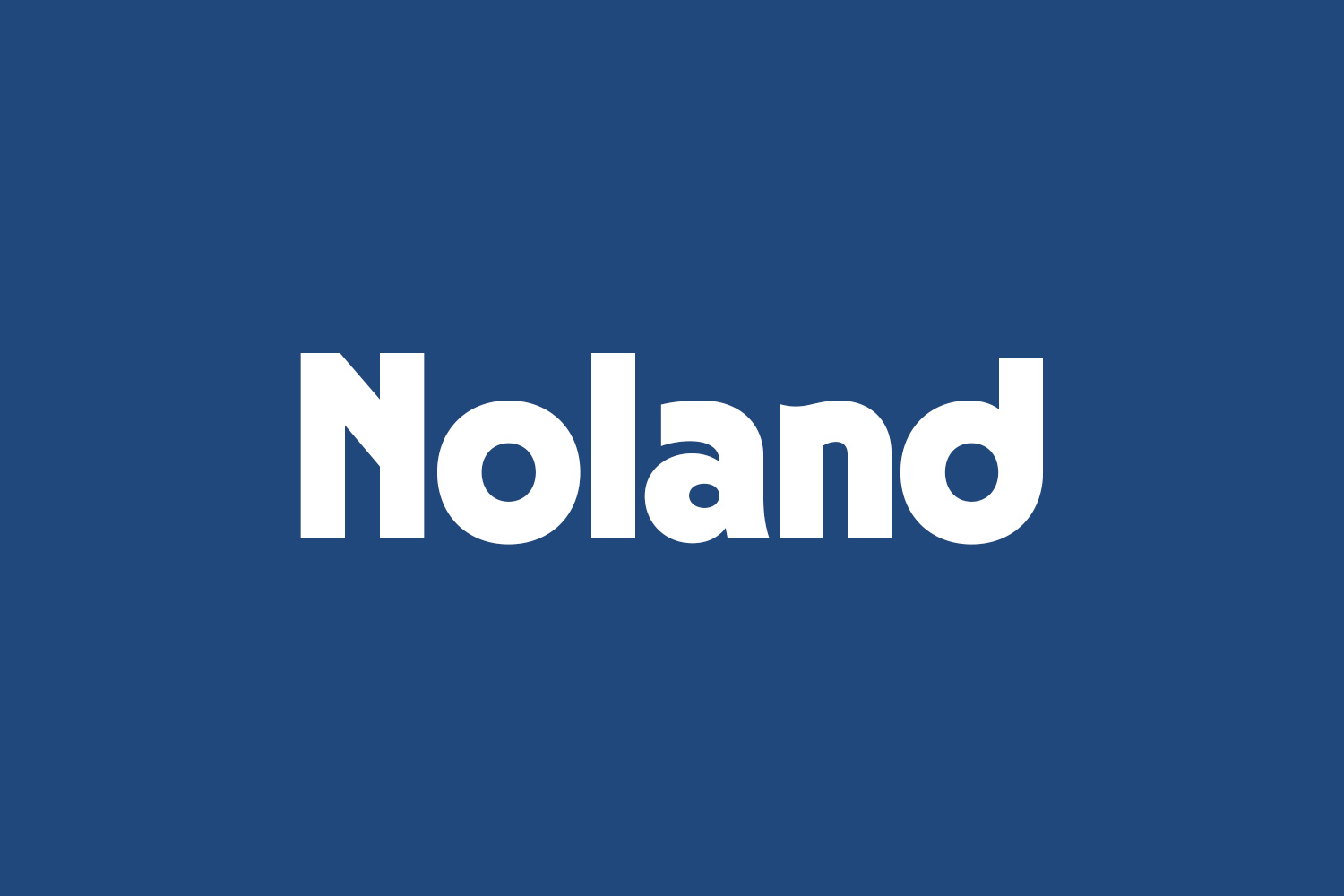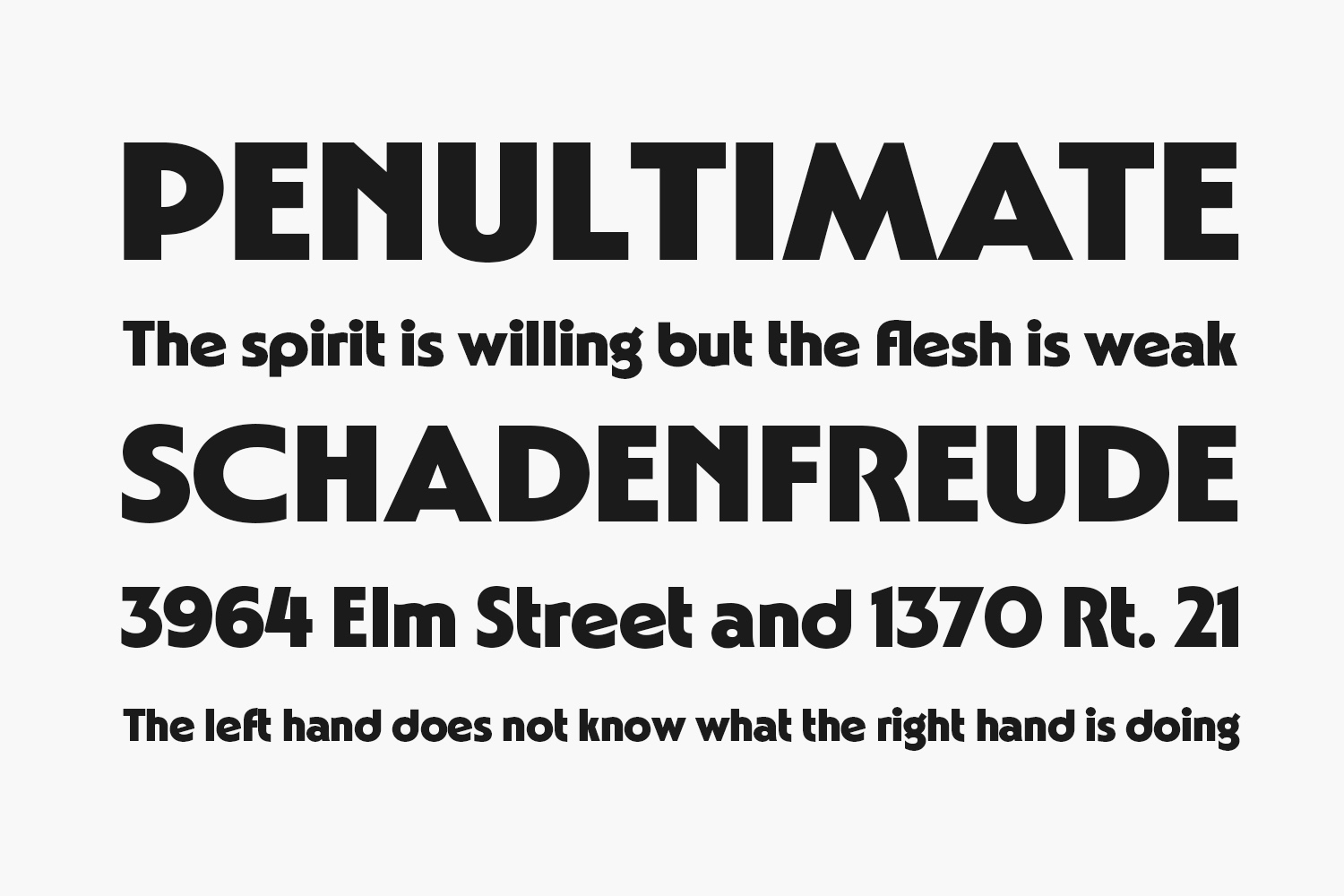
Meet Noland Free Font, an elegant and clean sans-serif font. Exceptionally versatile, this font complements a broad range of contexts seamlessly. Incorporate it into your projects with confidence, and experience the impressive results it brings. Noland Free Font is free for personal use only. Please purchase the full version for commercial use.